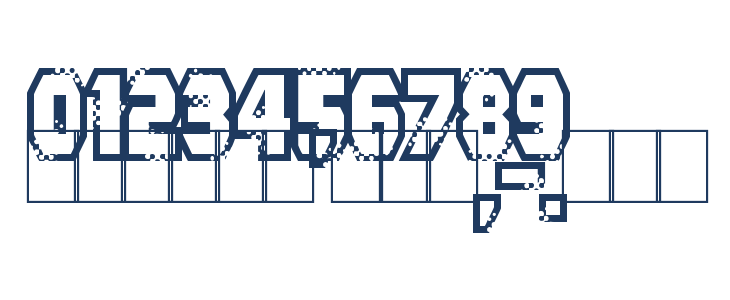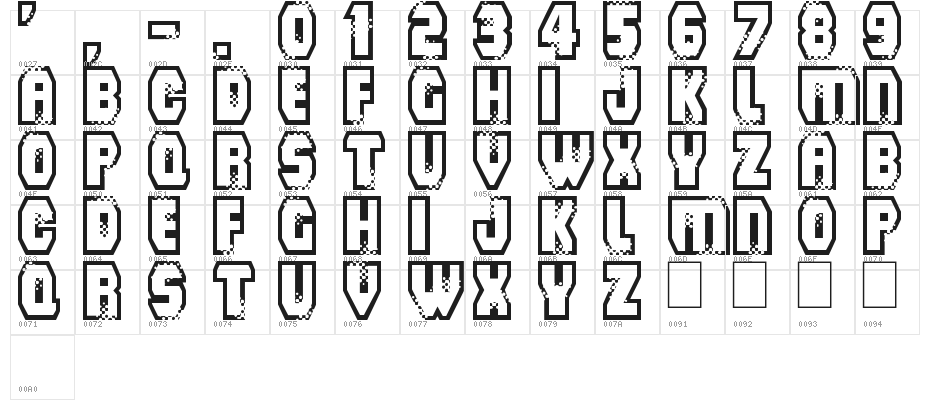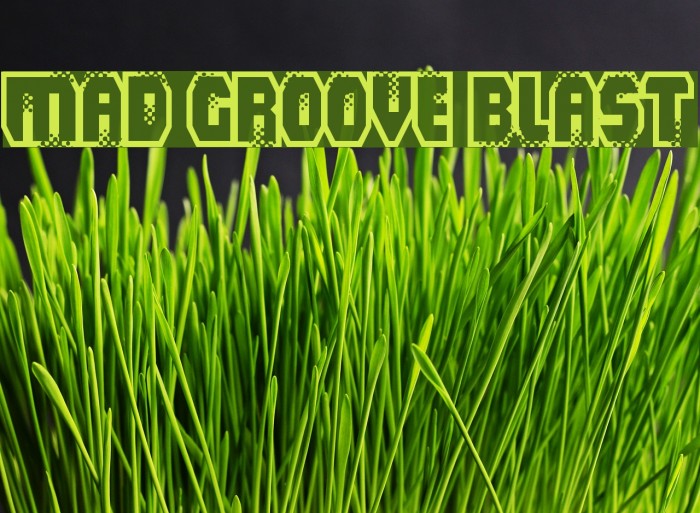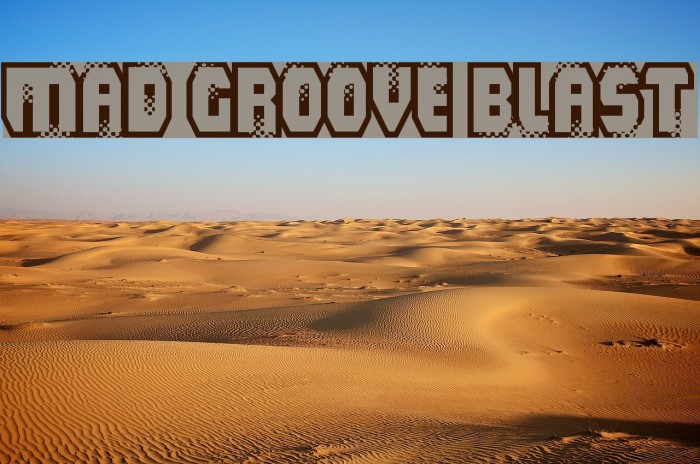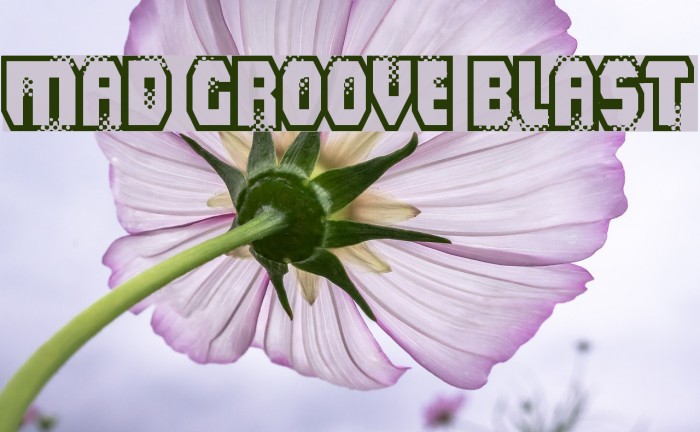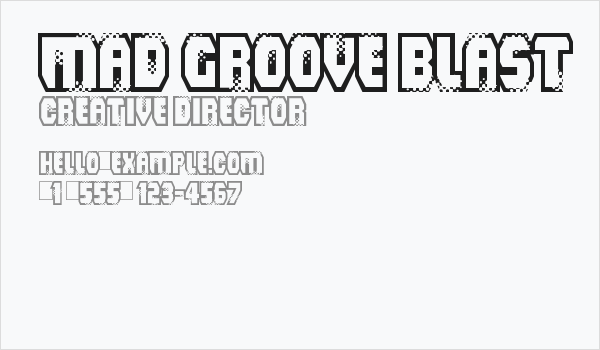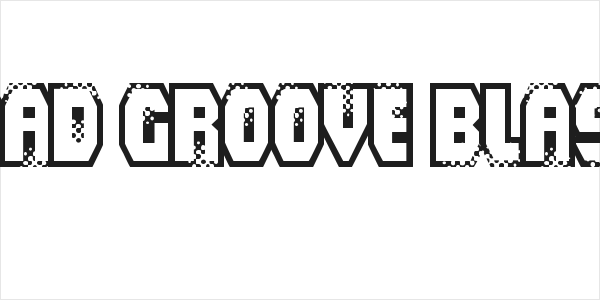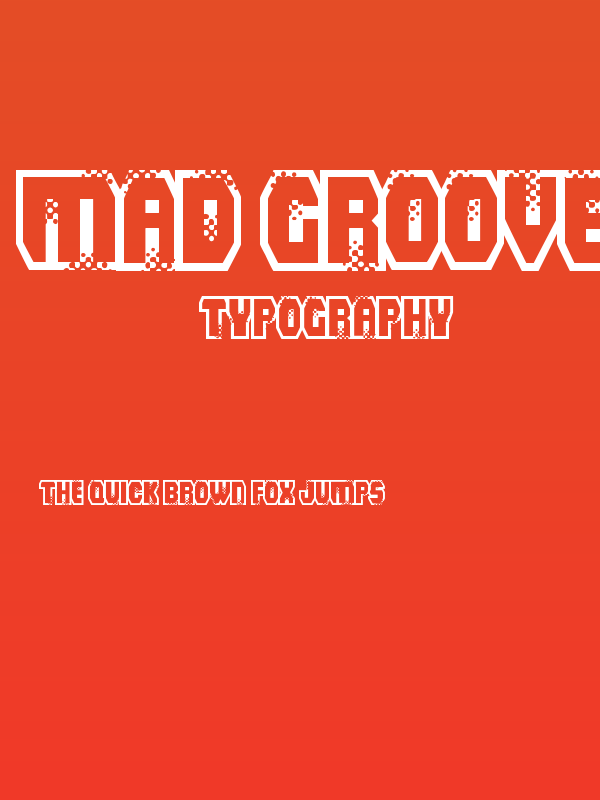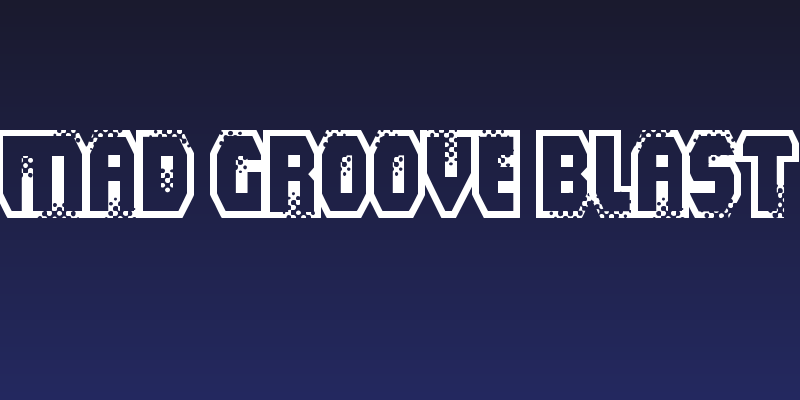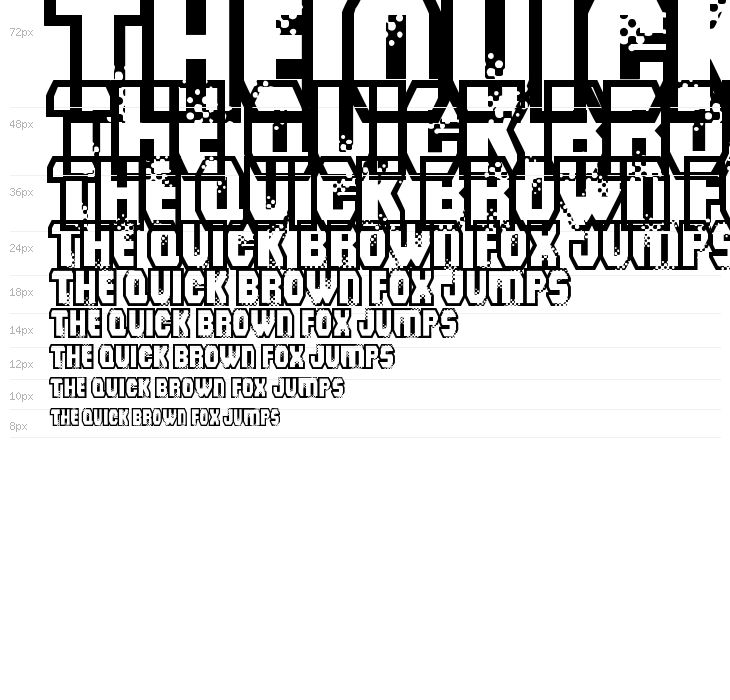
Mad Groove Blast Font
Mad Groove Blast Description
This font features a bold and dynamic design with a strong geometric structure. The characters are outlined with a thick border, creating a striking and impactful appearance. The interior of each letter is filled with a dotted pattern, adding a unique texture and visual interest. The uppercase letters are uniform in height, while the numerals maintain a consistent style that complements the alphabet. The special characters are designed to match the bold and decorative theme, making this font suitable for attention-grabbing headlines and creative projects.
| Proposed Projects | Ideal for posters, logos, video game graphics, and any project requiring a bold, eye-catching typeface. |